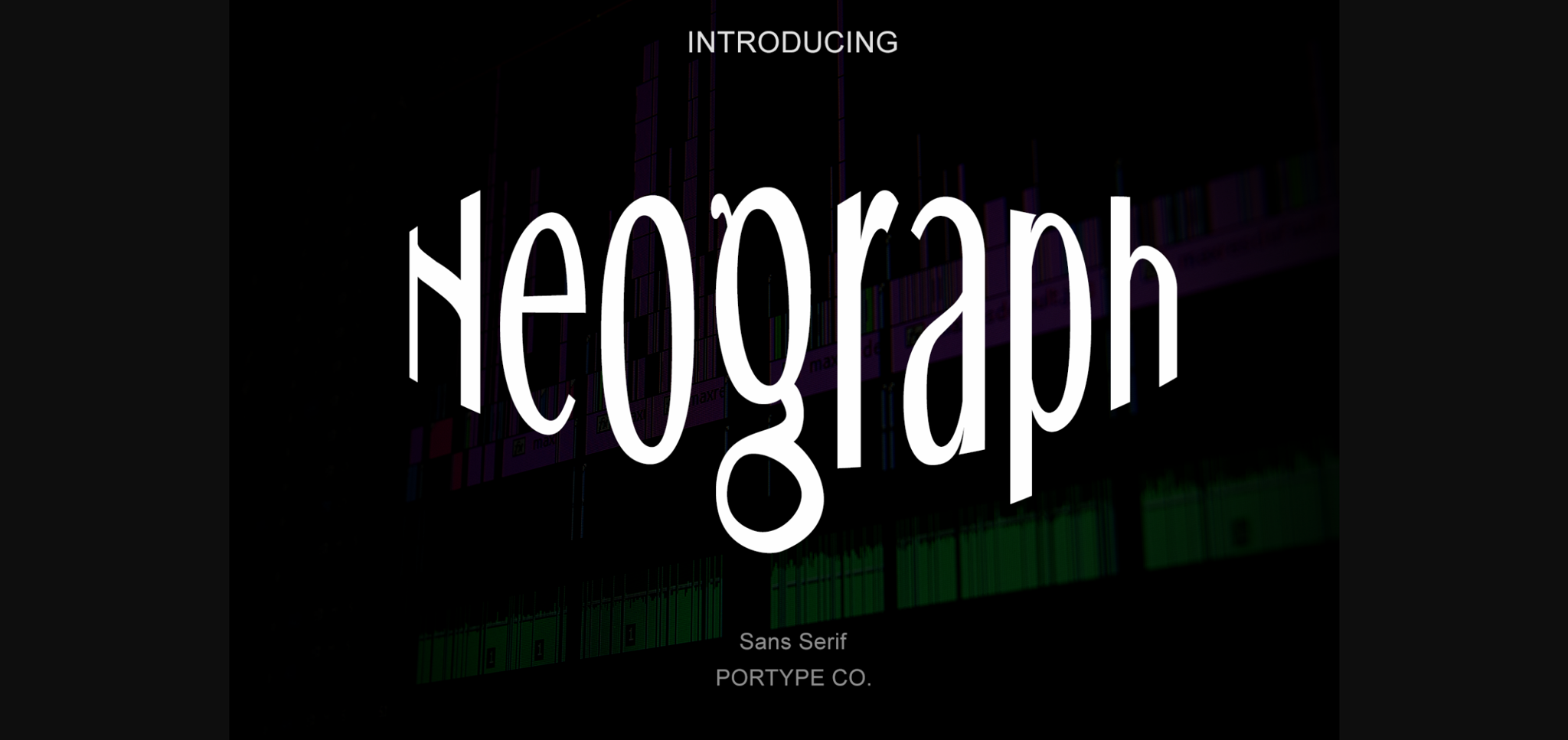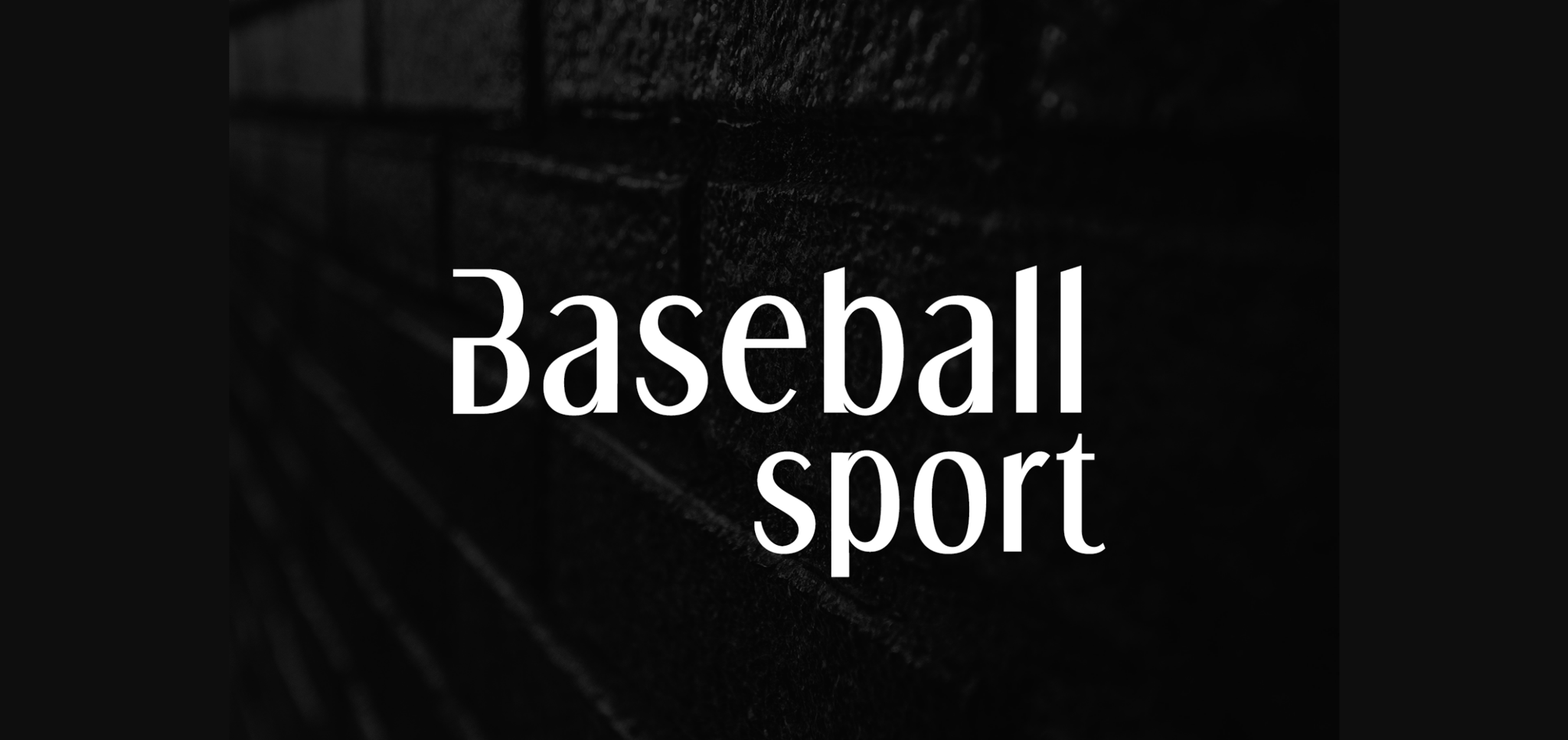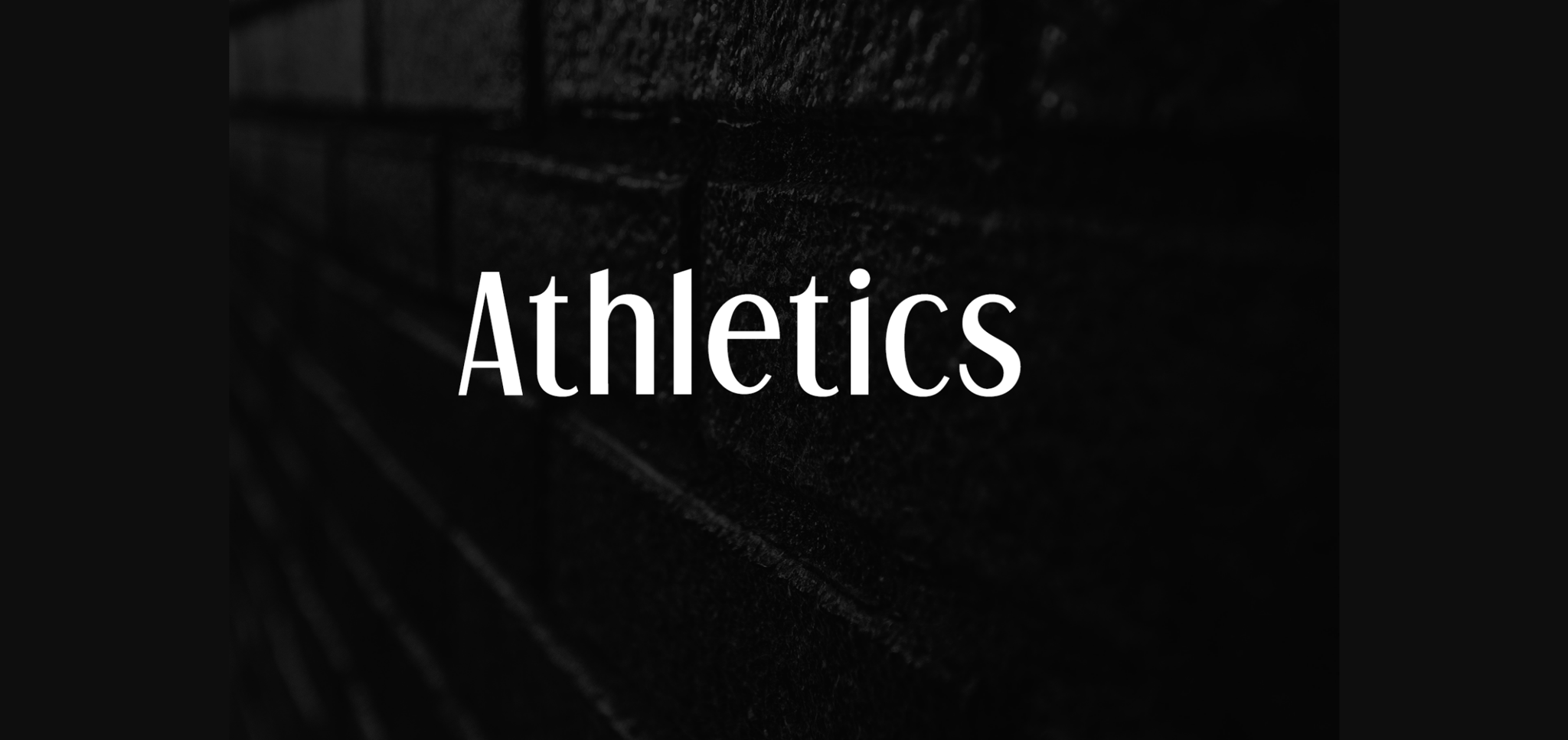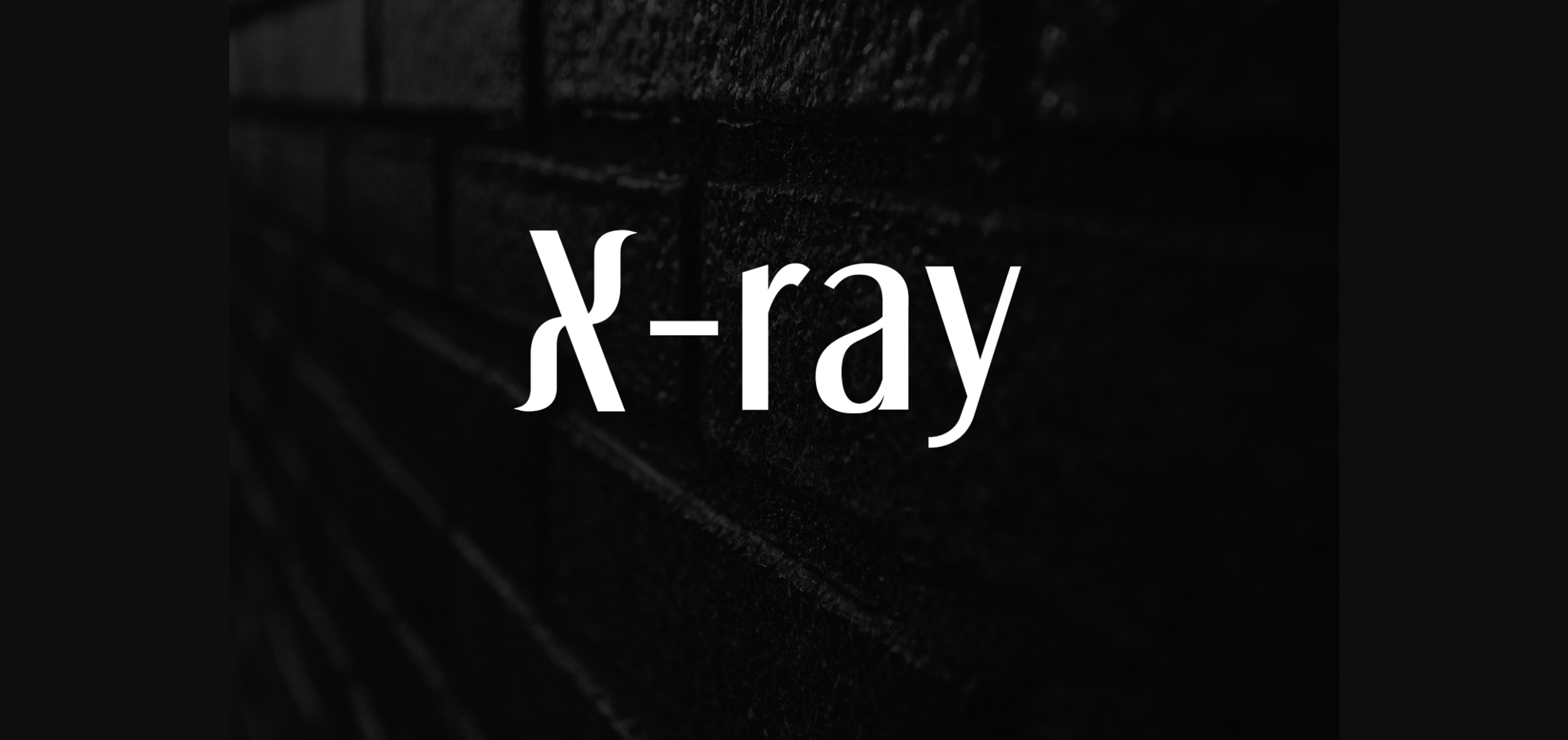
About Neograph Font
Neograph font is a beautiful typeface that belongs to the sans serif family of fonts. The font’s overall design is clean, modern, and easy on the eyes, making it an excellent choice for various projects. The typeface’s letters are well-rounded and perfectly spaced, allowing clarity and readability in any size. The Neograph font is versatile and can be used in various forms of print and digital media.
The font’s clean lines and straightforward design make it perfect for use in logos, headers, body copy, and advertising. The Neograph font is also a popular choice for digital media such as websites and mobile apps due to its legibility and easy-to-read characteristics.
The font’s name is derived from the Greek word “Neo,” which means new, and “graph” meaning writing, which accurately depicts the font’s modern and innovative design. Its sans-serif style enhances its legibility and makes the typeface more accessible across various mediums and sizes.
Overall, the Neograph font’s simplicity, versatility, and legibility make it an exceptional choice for designers looking for a modern, yet timeless font that can meet diverse needs and applications.
The font’s clean lines and straightforward design make it perfect for use in logos, headers, body copy, and advertising. The Neograph font is also a popular choice for digital media such as websites and mobile apps due to its legibility and easy-to-read characteristics.
The font’s name is derived from the Greek word “Neo,” which means new, and “graph” meaning writing, which accurately depicts the font’s modern and innovative design. Its sans-serif style enhances its legibility and makes the typeface more accessible across various mediums and sizes.
Overall, the Neograph font’s simplicity, versatility, and legibility make it an exceptional choice for designers looking for a modern, yet timeless font that can meet diverse needs and applications.